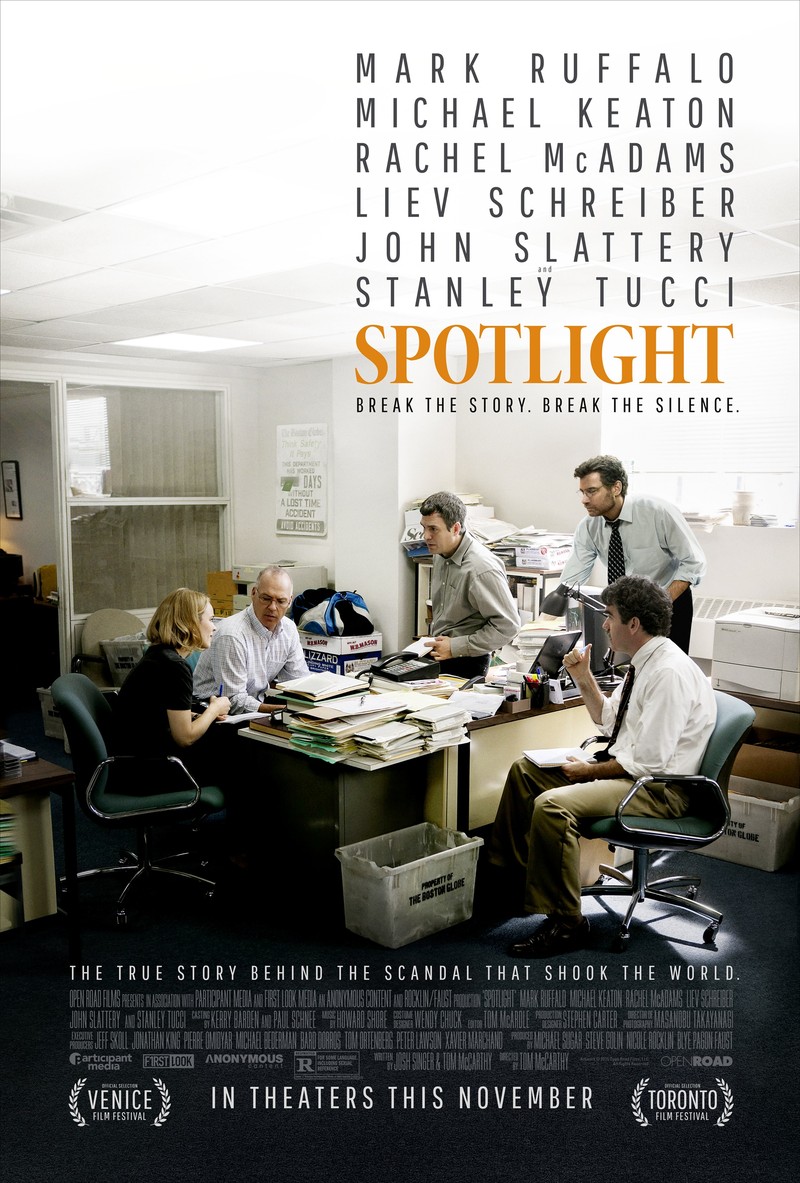
Spotlight (film) Font
BiographySpotlight is a 2015 American biographical drama film directed by Tom McCarthy and written by McCarthy and Josh Singer. The film is based on the true story of the "Spotlight" team of investigative journalists at The Boston Globe, who in 2002 uncovered the widespread sexual abuse of children within the Roman Catholic Archdiocese of Boston, Massachusetts.
Minion Pro Display Condensed Bold, a graceful Adobe Original font created by Robert Slimbach, is the font used for the Spotlight movie's title in the poster. Pathway Gothic One, a narrow grotesque sans created by Eduardo Tunni and made available under the Open Font License, serves as the sans serif for the credits text above the movie's title.